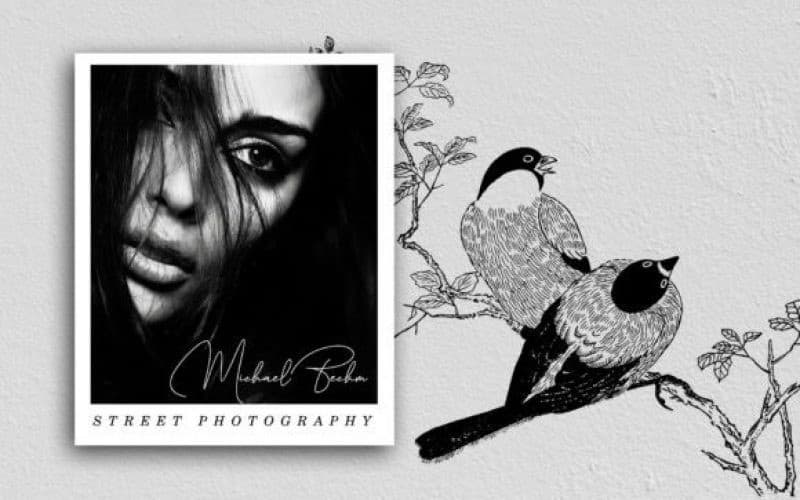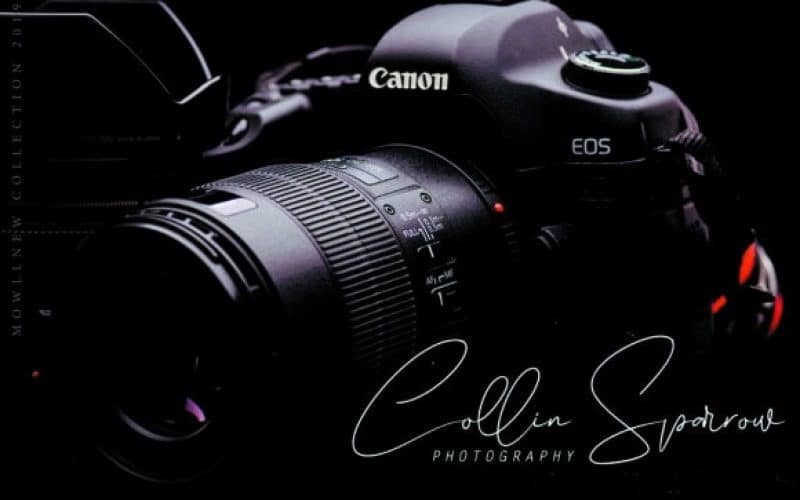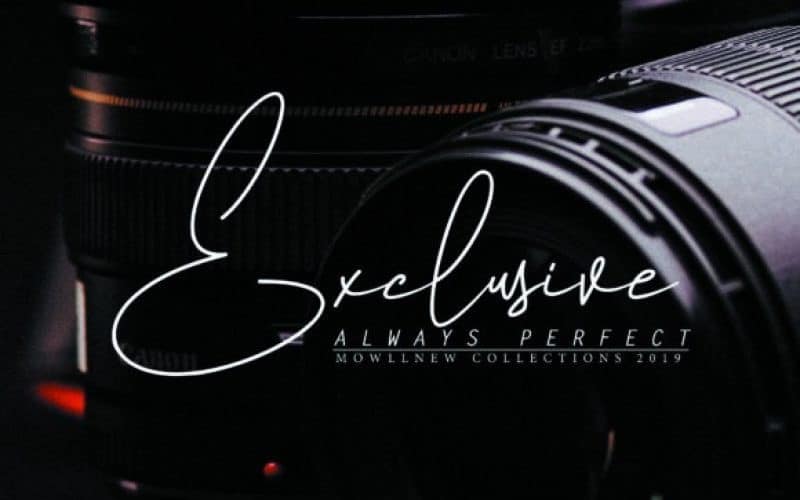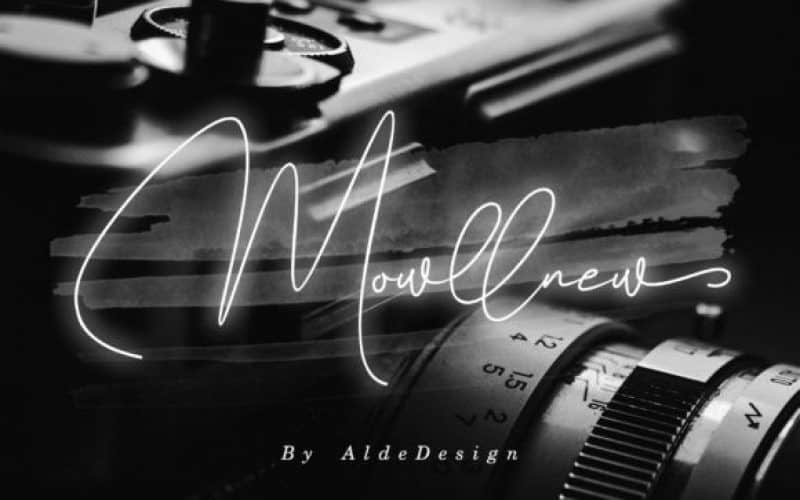
Mowllnew Handwritten Font
Mowllnew Handwritten Font is a monoline script font created by aldedesign with a handwritten style that makes the Jakarta Signature font look like a natural writing. This Font is great for logo, printed quotes, badge, insignia, packaging, headline, poster, t-shirt/apparel, greeting card, and wedding invitation, & etc.